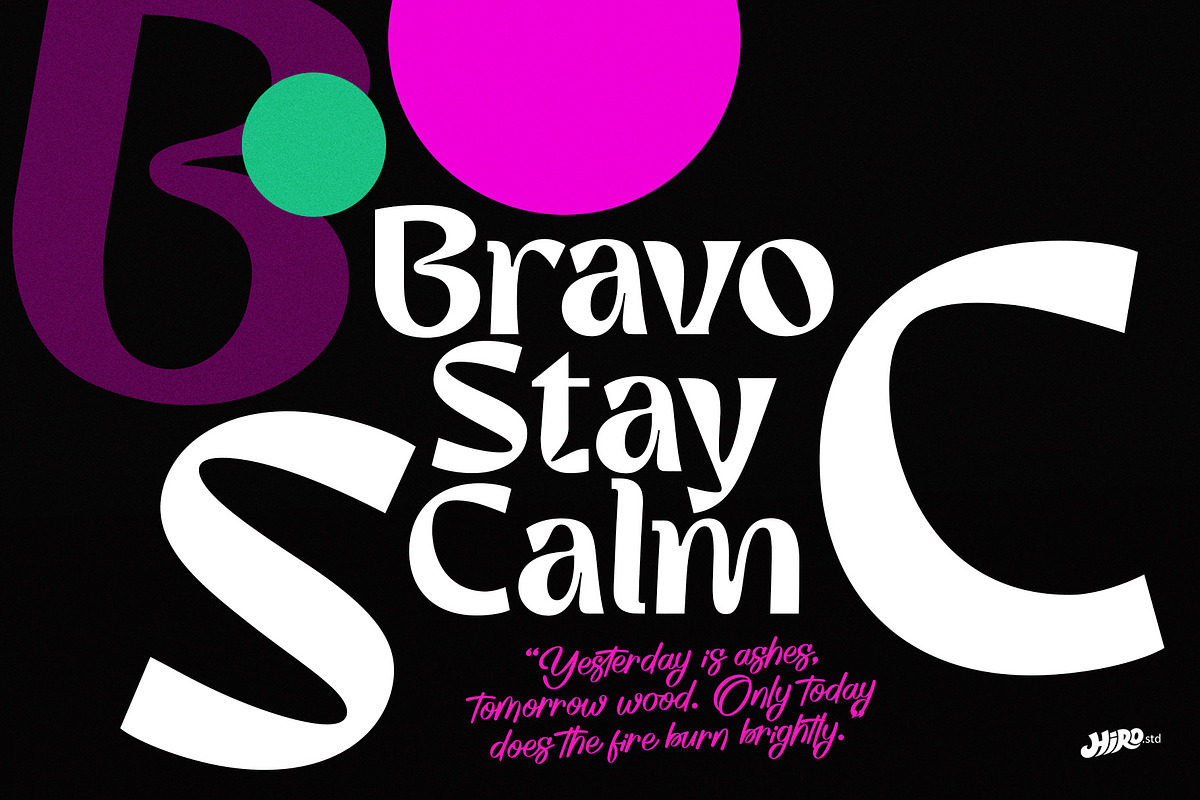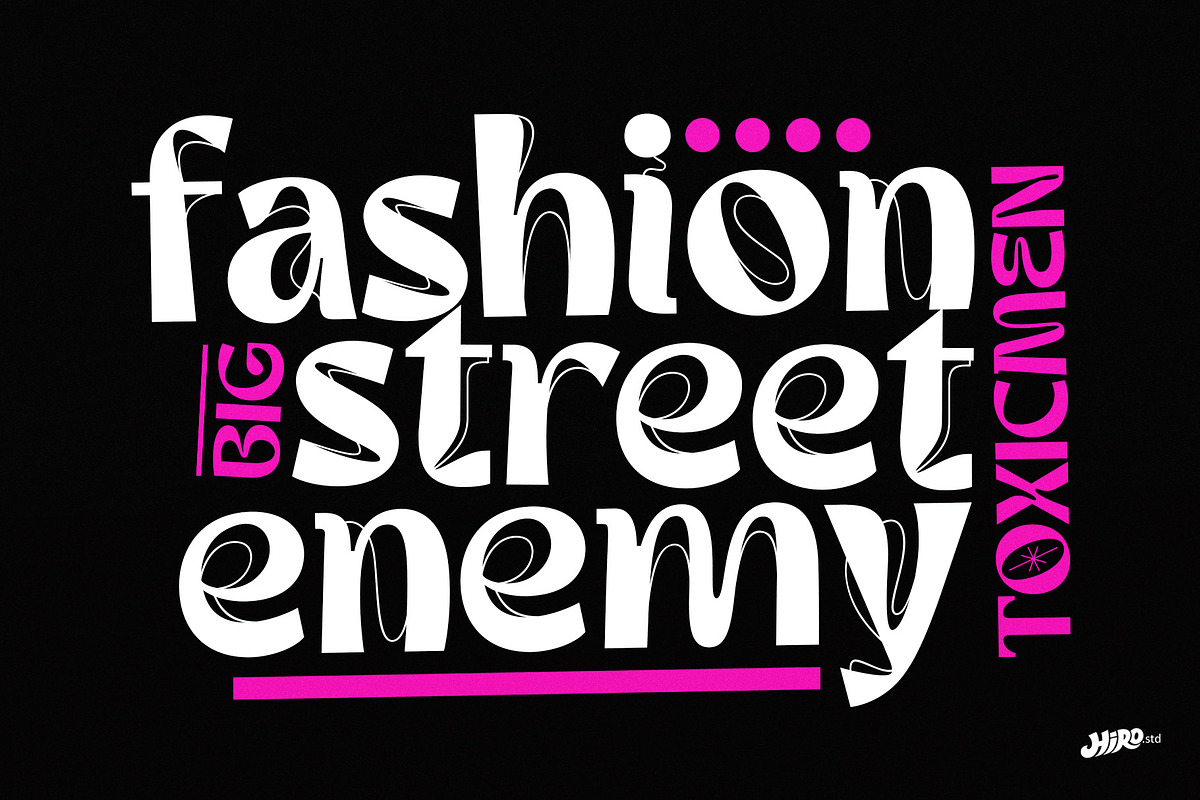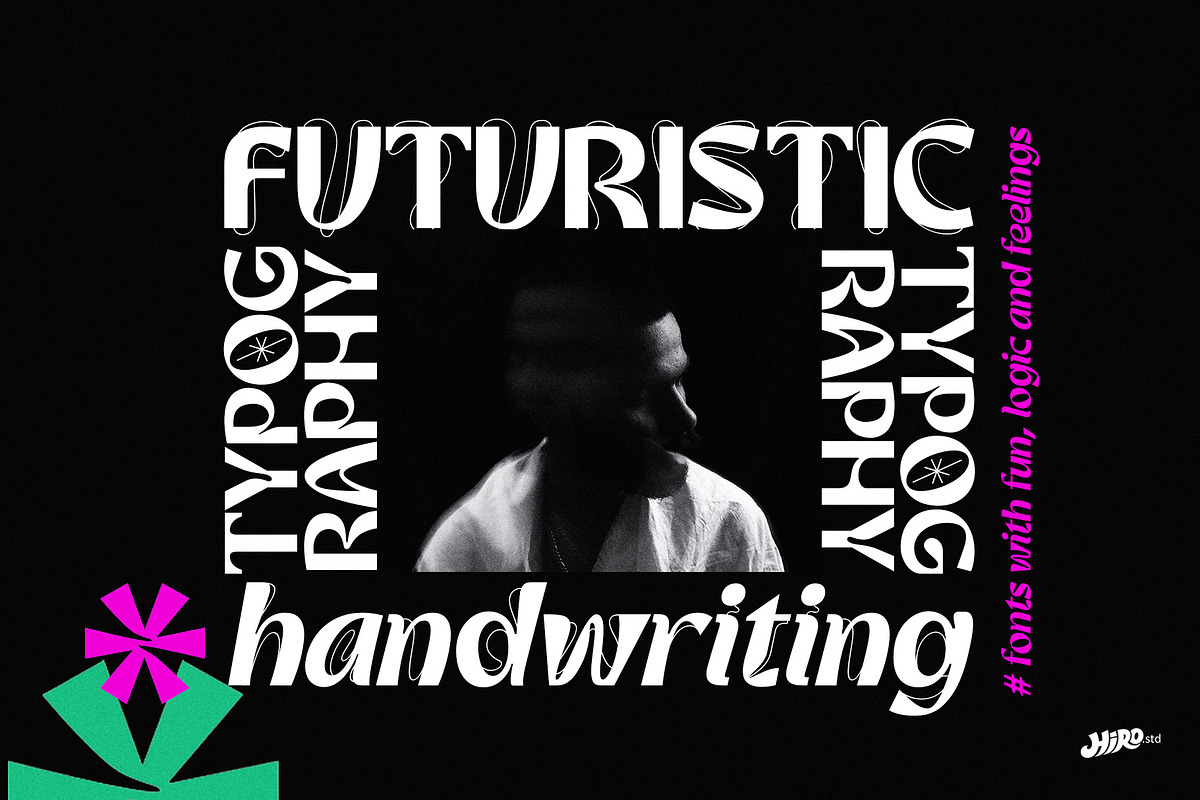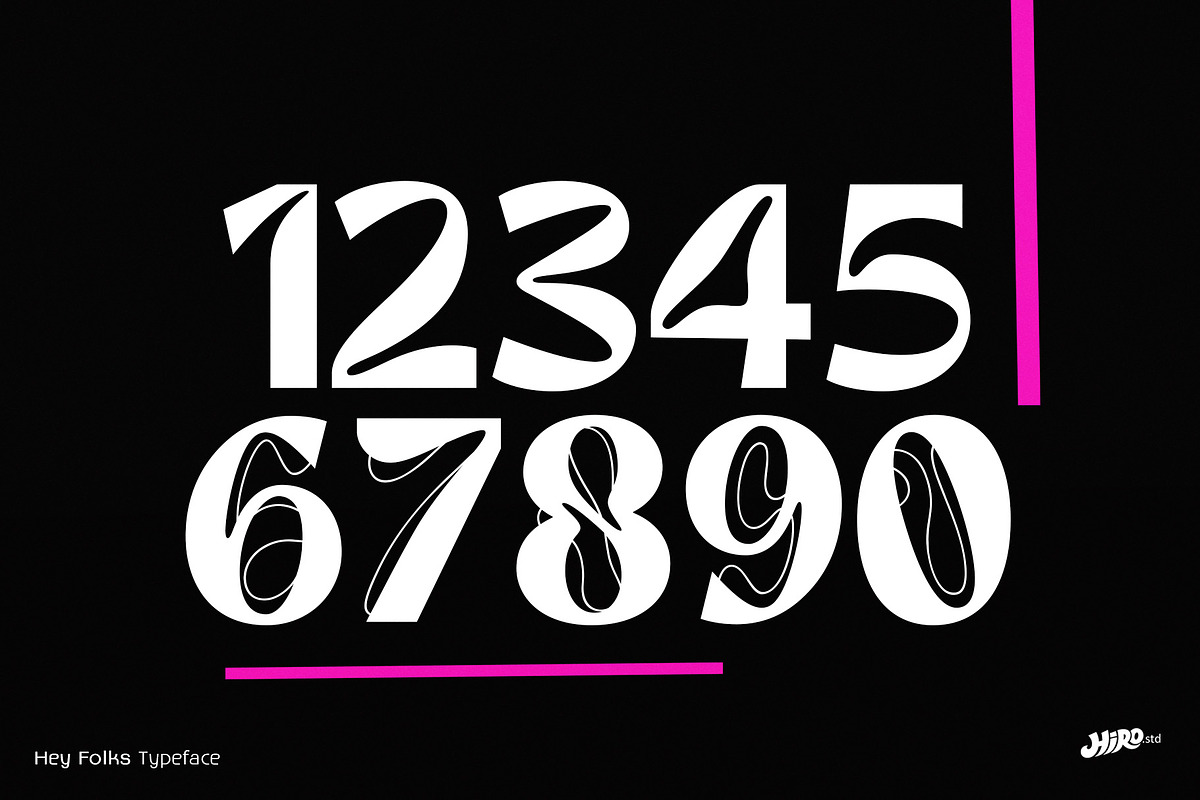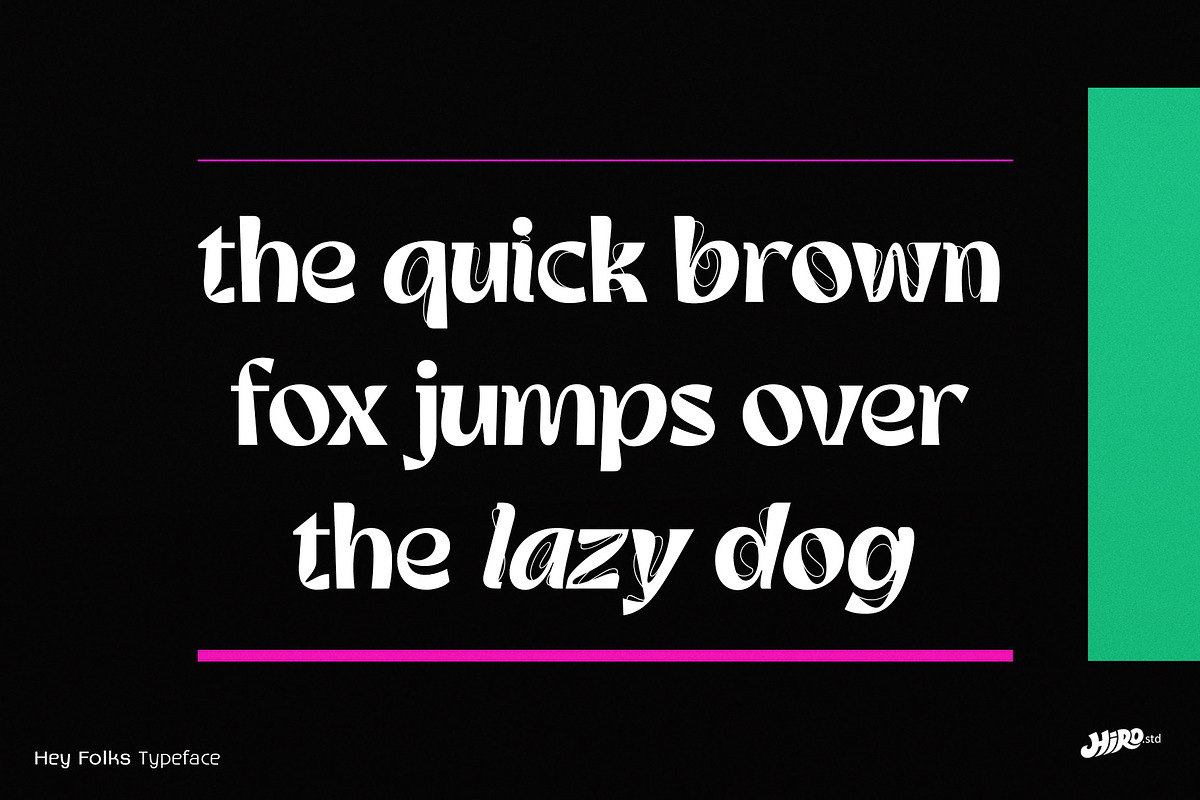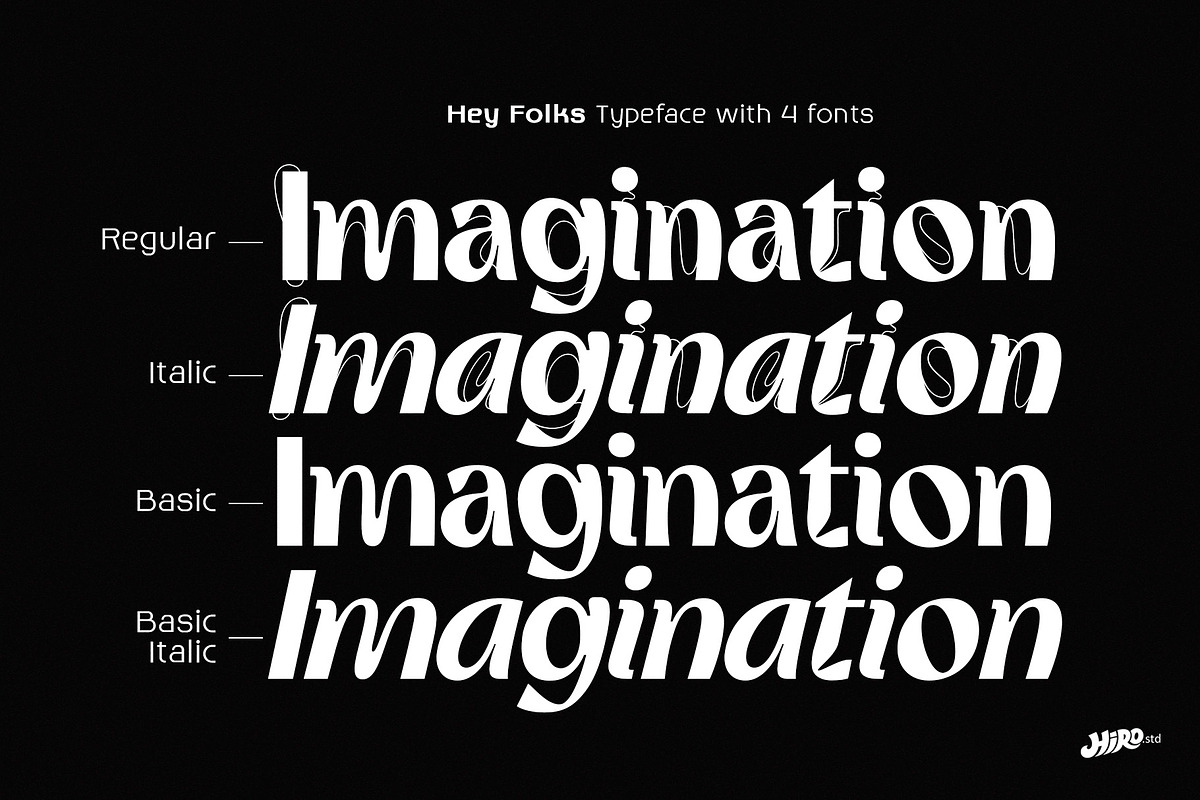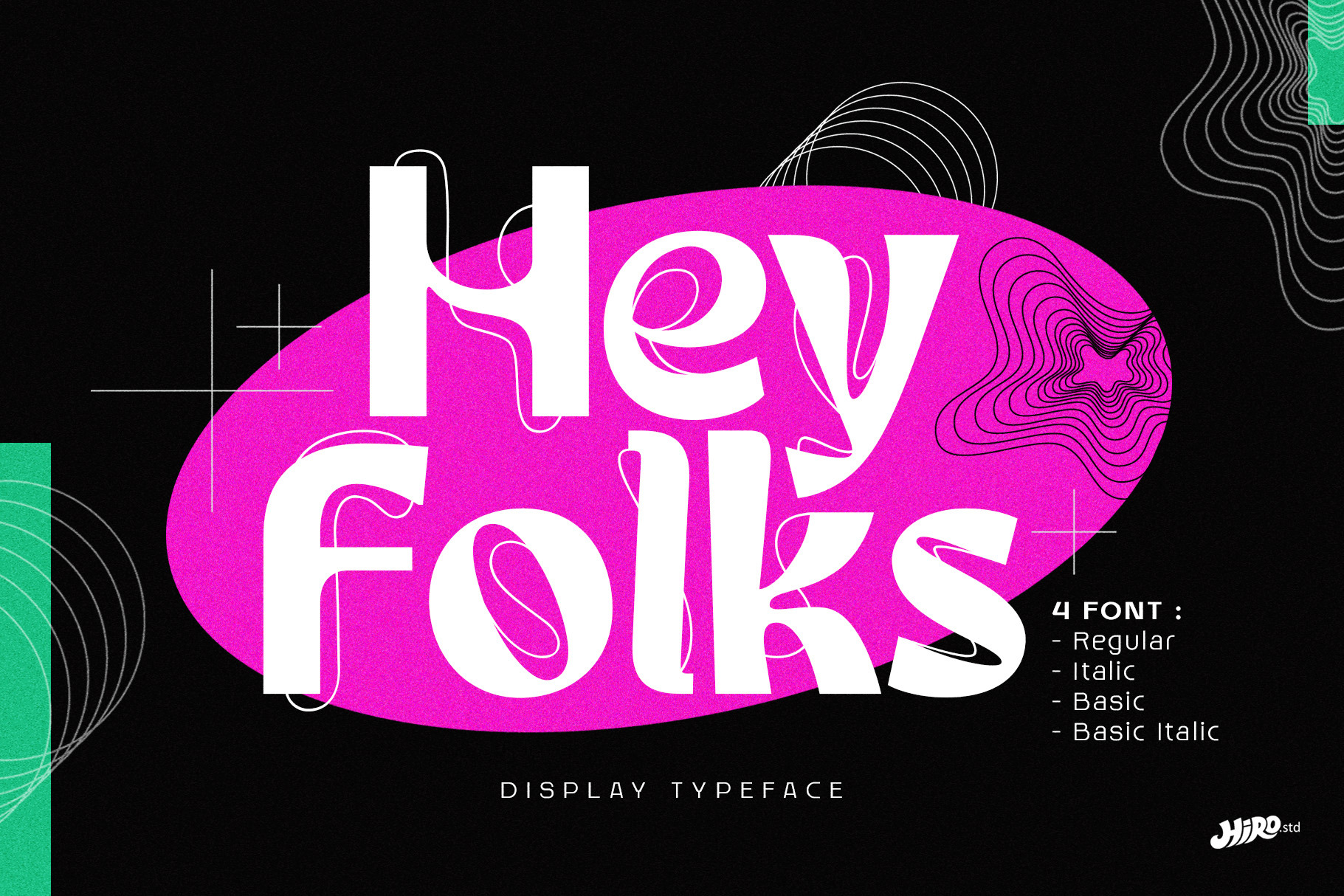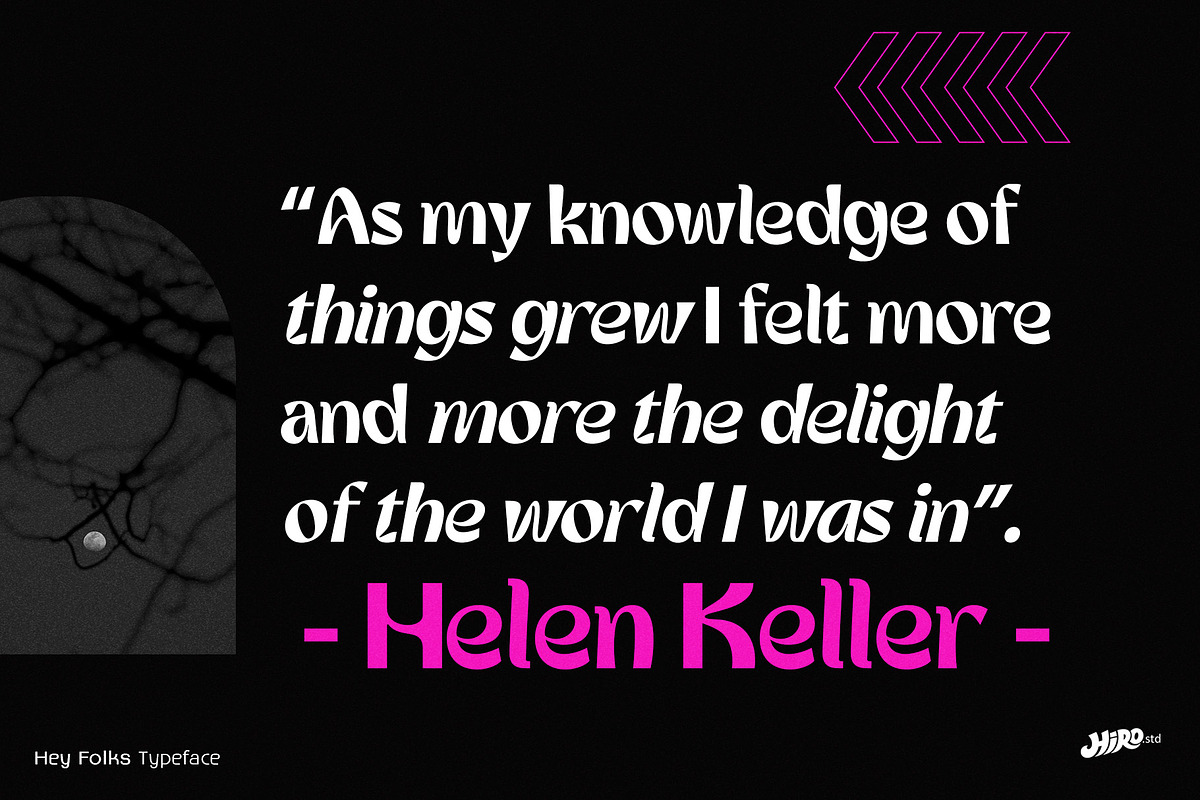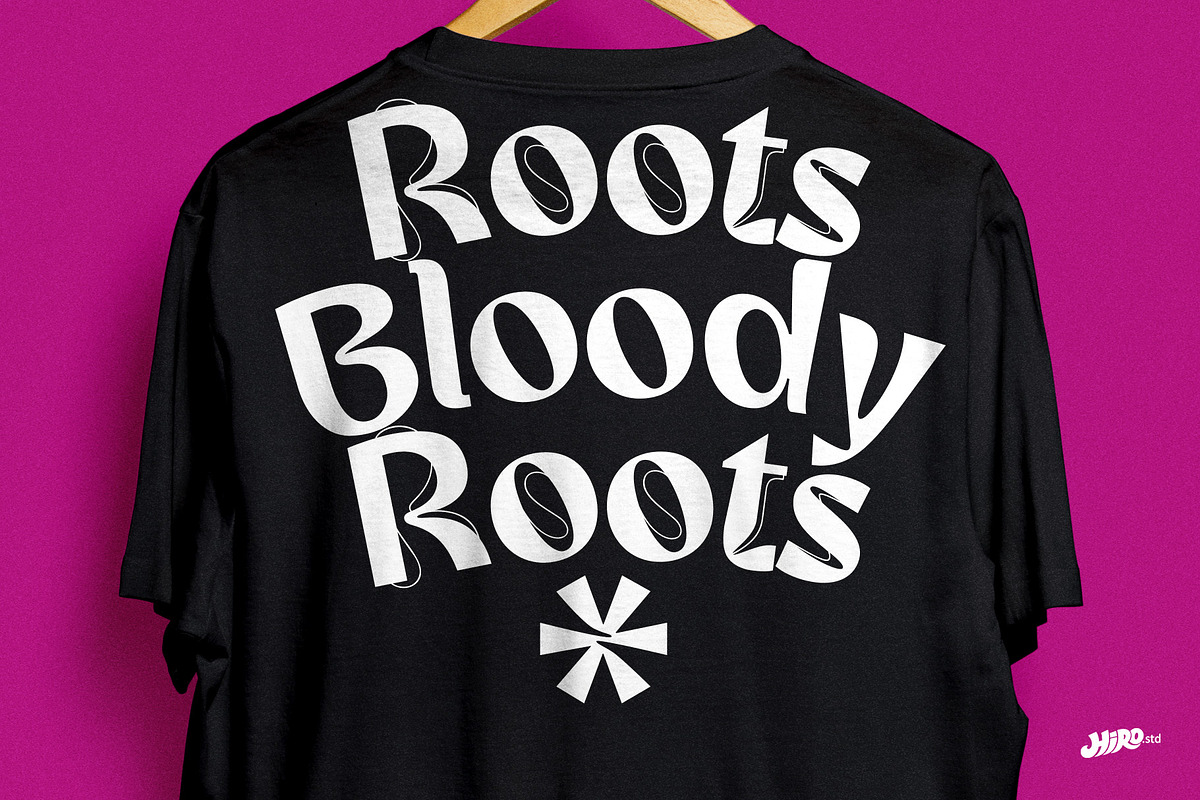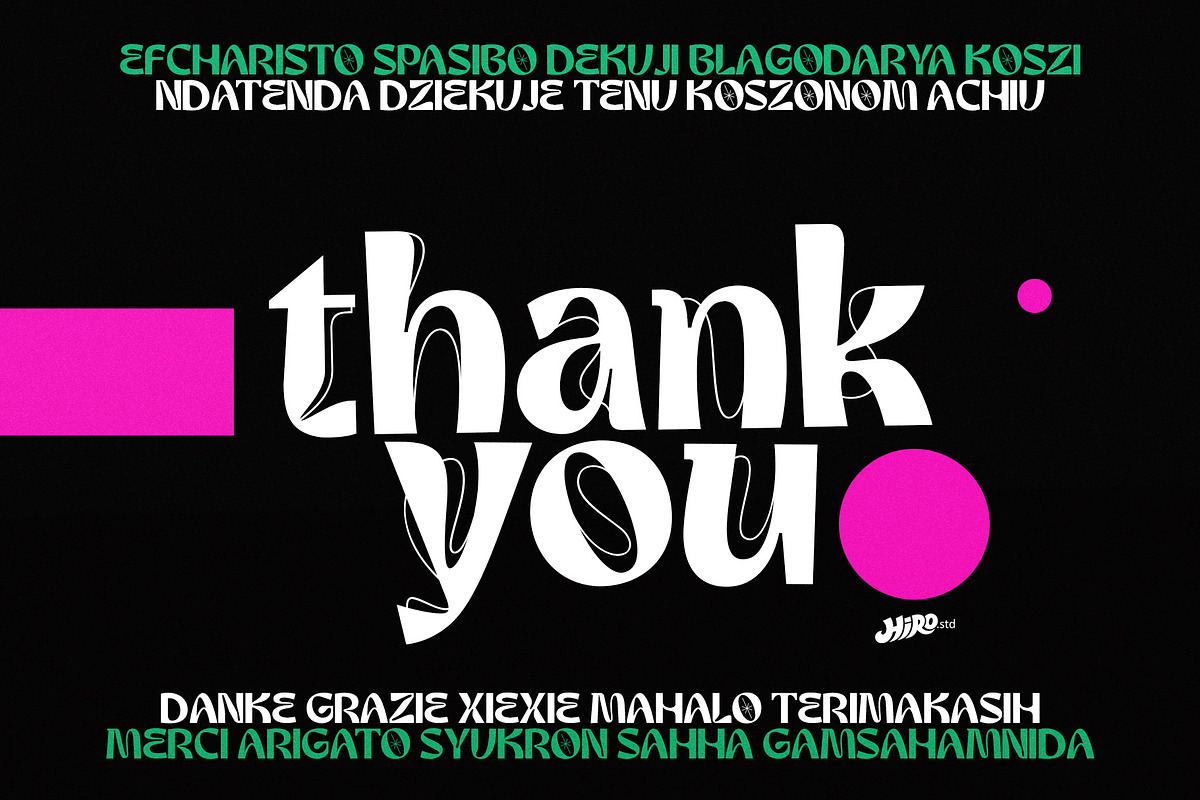
Hey Folks - Display Typeface
Hey Folks is a Display Typeface
This font describes about stylist, modern, DIY spirit, retro, vintage and easy to use. Hey Folks inspired by street culture, modern life, vintage and retro.
USE Hey Folks Display Typeface works great in T-shirt/ Apparel Design, DIY Project, Title, Poster and Magazine.